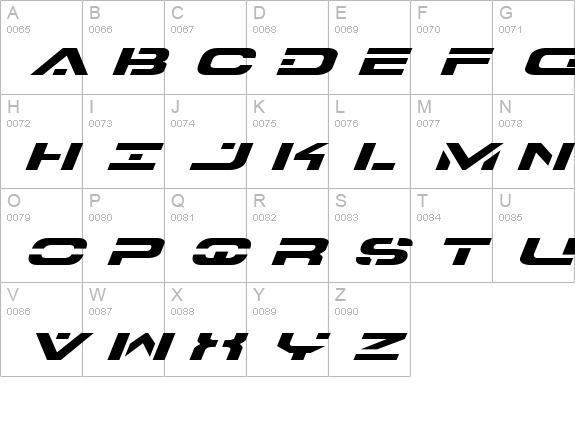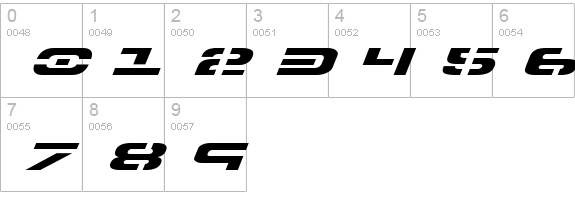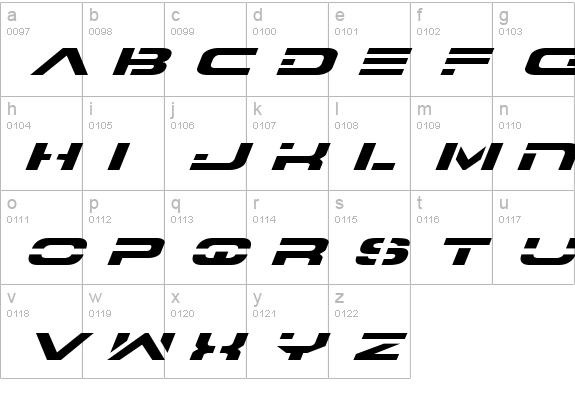
7th Service Expanded Italic is a distinctive, extended-width, italic variant in the 7th typeface family \xE2\x80\x94 well suited to design and typography projects.
The 7th Service Expanded Italic font is a stylish and modern typeface that exudes elegance and sophistication. Its sleek and elongated letterforms make it perfect for adding a touch of class to any design project. This font is perfect for headlines, titles, and other display purposes where you want to make a bold statement. What sets the 7th Service Expanded Italic font apart is its unique italicized style, which adds a dynamic and expressive quality to your text. Whether you're designing a poster, logo, or website, this font will help your content stand out and make a lasting impression. Best of all, this font is available for free download at FontsMarket.com. So go ahead and give your projects a touch of flair with the 7th Service Expanded Italic font today!